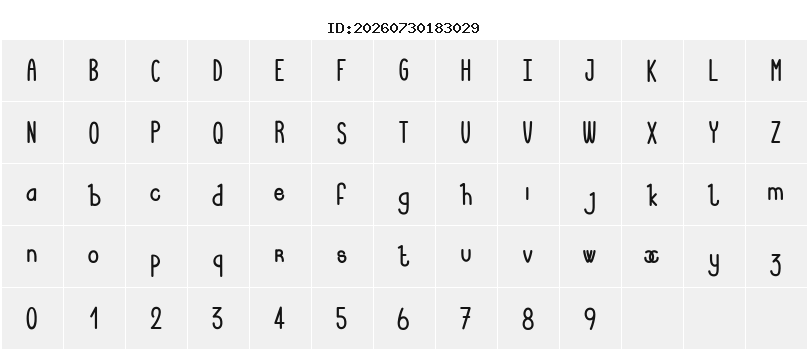
• Font Name: Lucie Mandragore
• Full Font Name: Lucie Mandragore
• Designer: dcoxy Medina Gregory
• Manufacturer: dcoxy Medina Gregory
About Lucie Mandragore.ttf
Lucie Mandragore.ttf is a modern, elegant sans-serif font designed for ultimate readability and visual harmony. Perfect for branding, headlines, web design, and print materials.